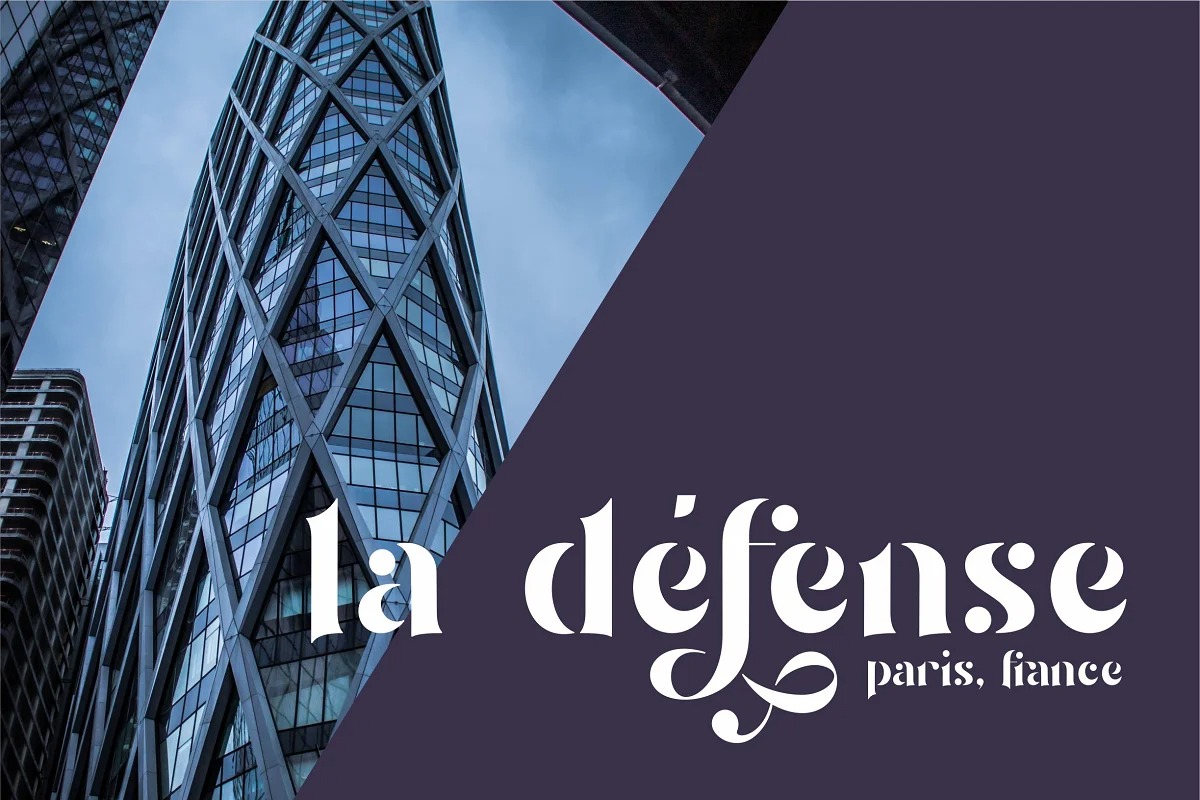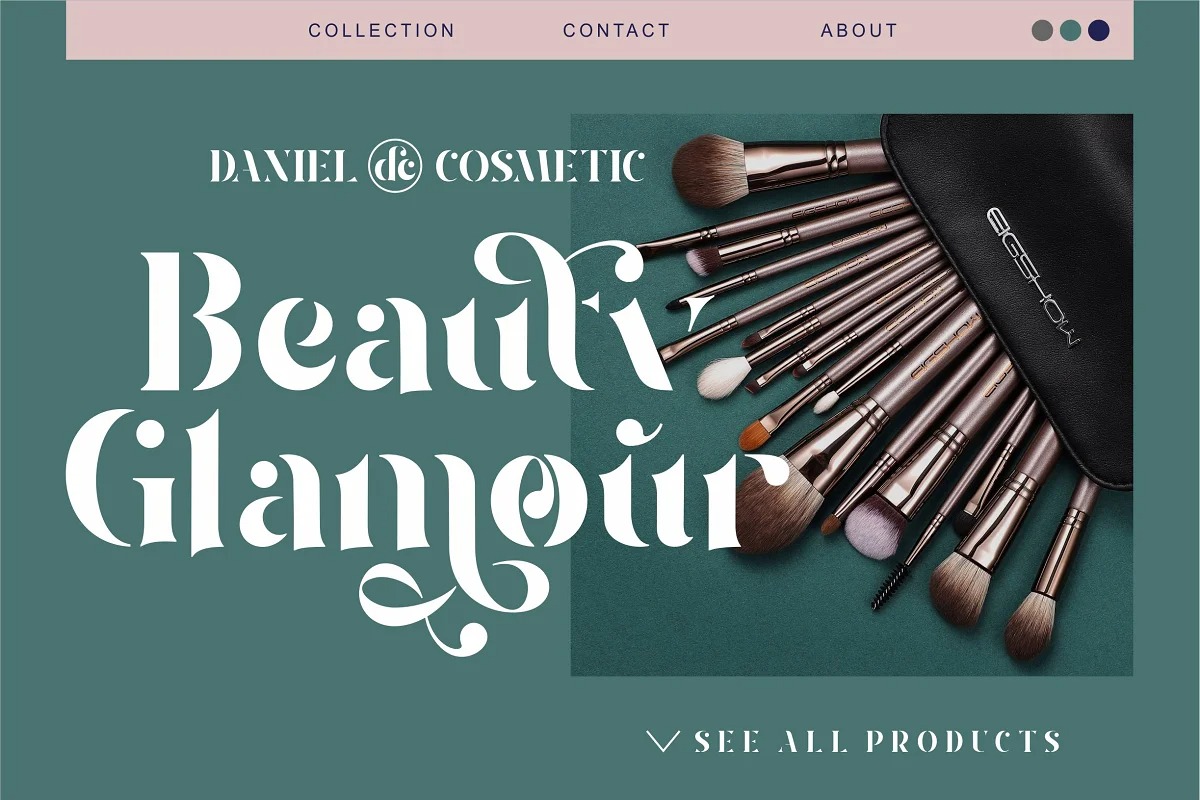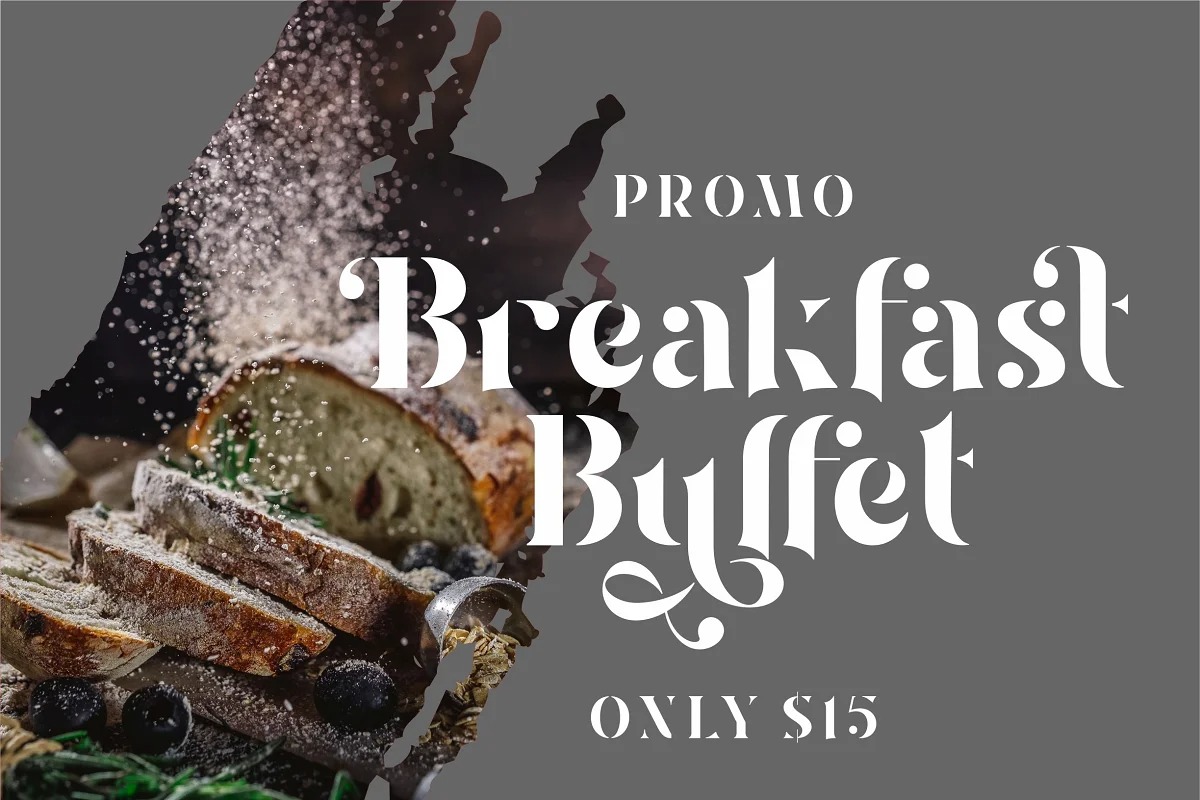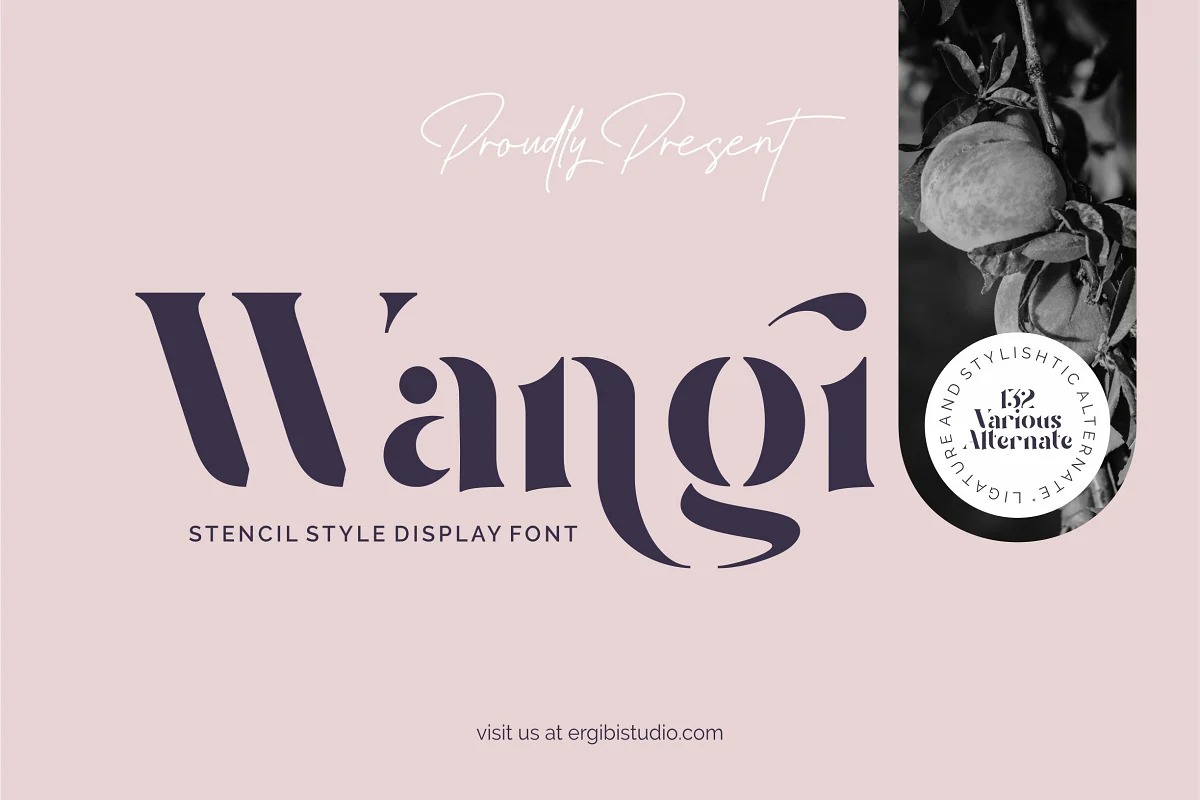
Wangi serif Font is for those who are looking for an elegant, yet natural font, well suited for wedding stationery, branding, monograms, social media, prints and other creative projects. Mantovans is cleanly designed. This is the best choice with more than 130+ alternative characters, so you can show more variations for the completion of your design.